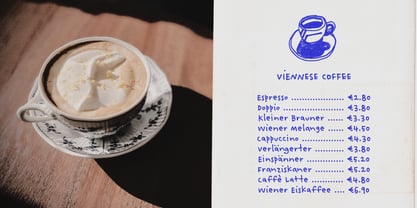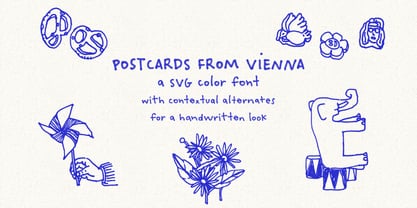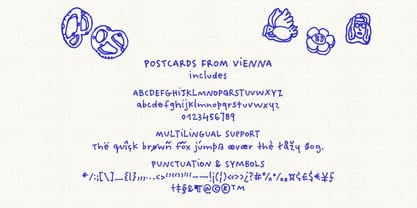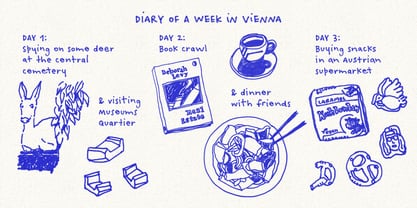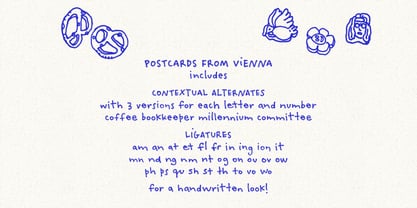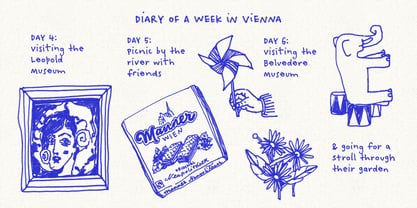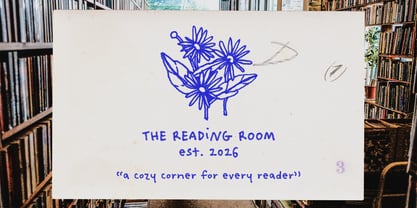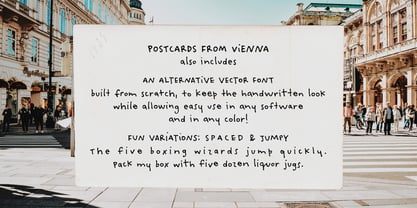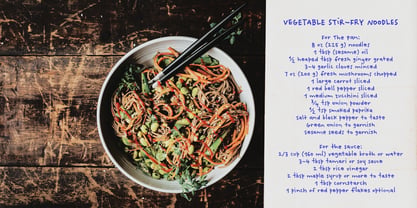
Postcards From Vienna
by Ana's Fonts
The Postcards From Vienna Font Family was designed by Ana Parracho and published by Ana's Fonts. Postcards From Vienna contains 6 styles and family package options. More about this family
Postcards From Vienna is inspired by the blue pen I bought during a trip to Vienna, which I used to fill my travel sketchbook. I loved its texture so much that I turned my handwriting into a color font, so I could keep using it forever. Now you can too!
This font includes:
• A vector version of the font
• Regular, Jumpy and Spaced-out versions for more fun options
• Each font includes 3 versions of each letter and number that appear "randomly" using the "contextual alternates" feature
Perfect for adding a handmade, quirky touch to your designs, Postcards From Vienna is ideal for:
• Branding and logos
• Social media graphics & quotes
• Packaging, labels, and product tags
• Posters, flyers, and editorial headings
• Stationery, invitation, and greeting card designs